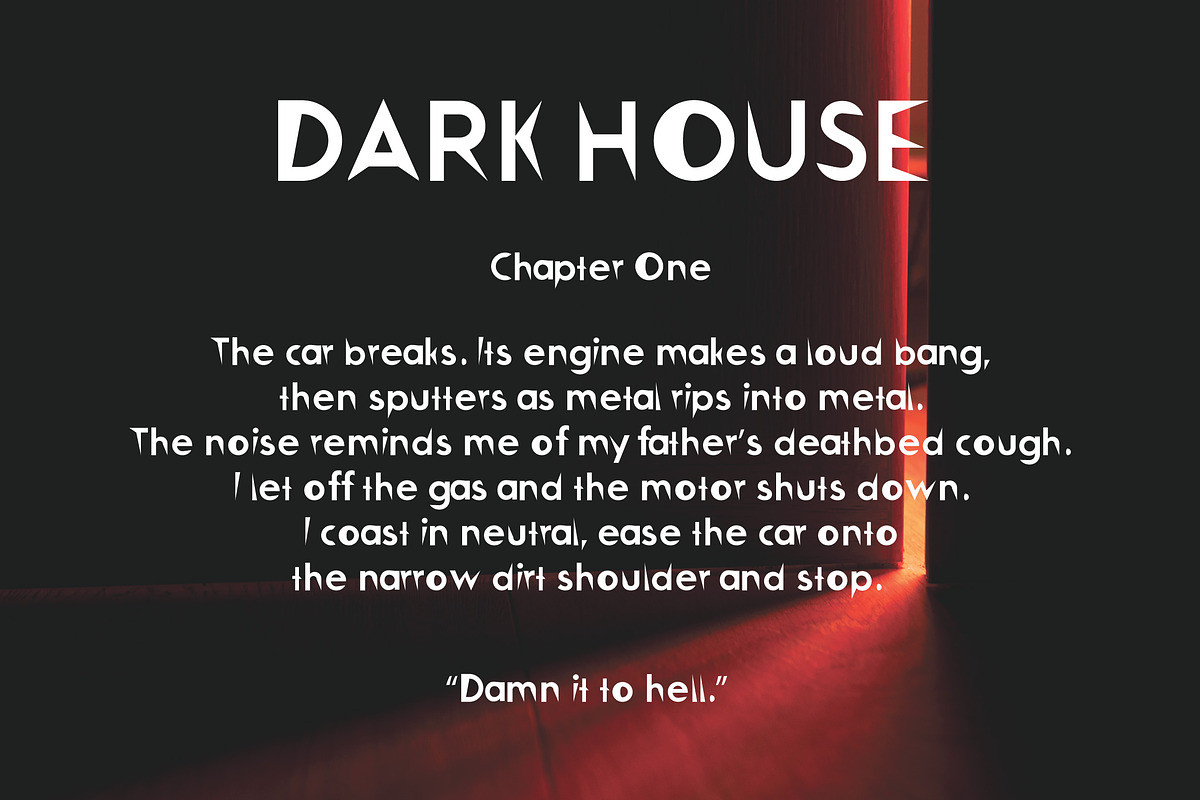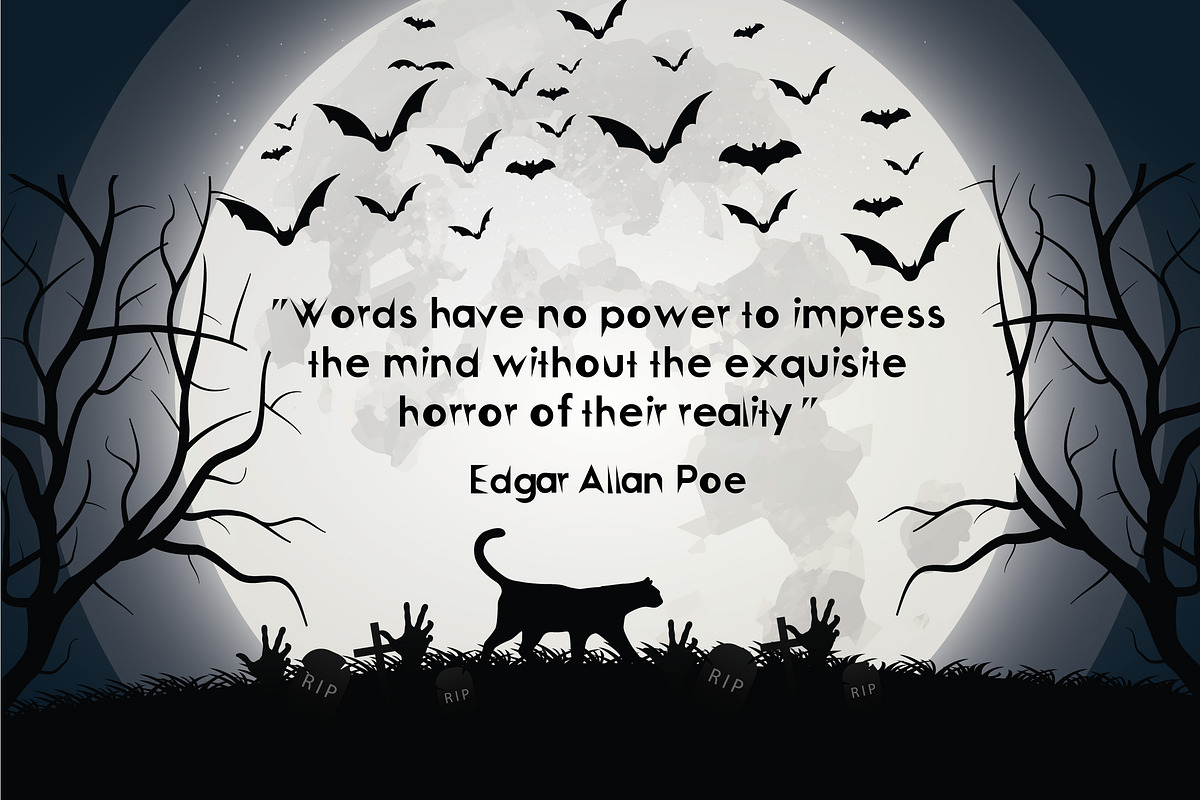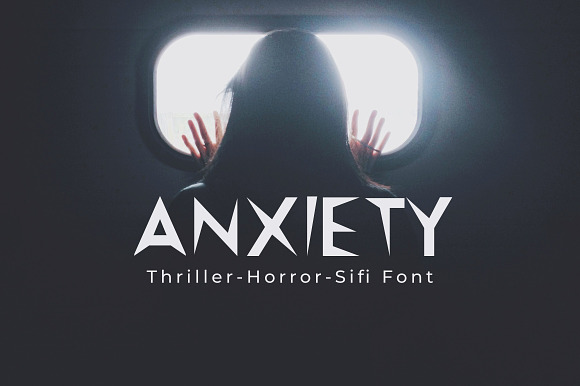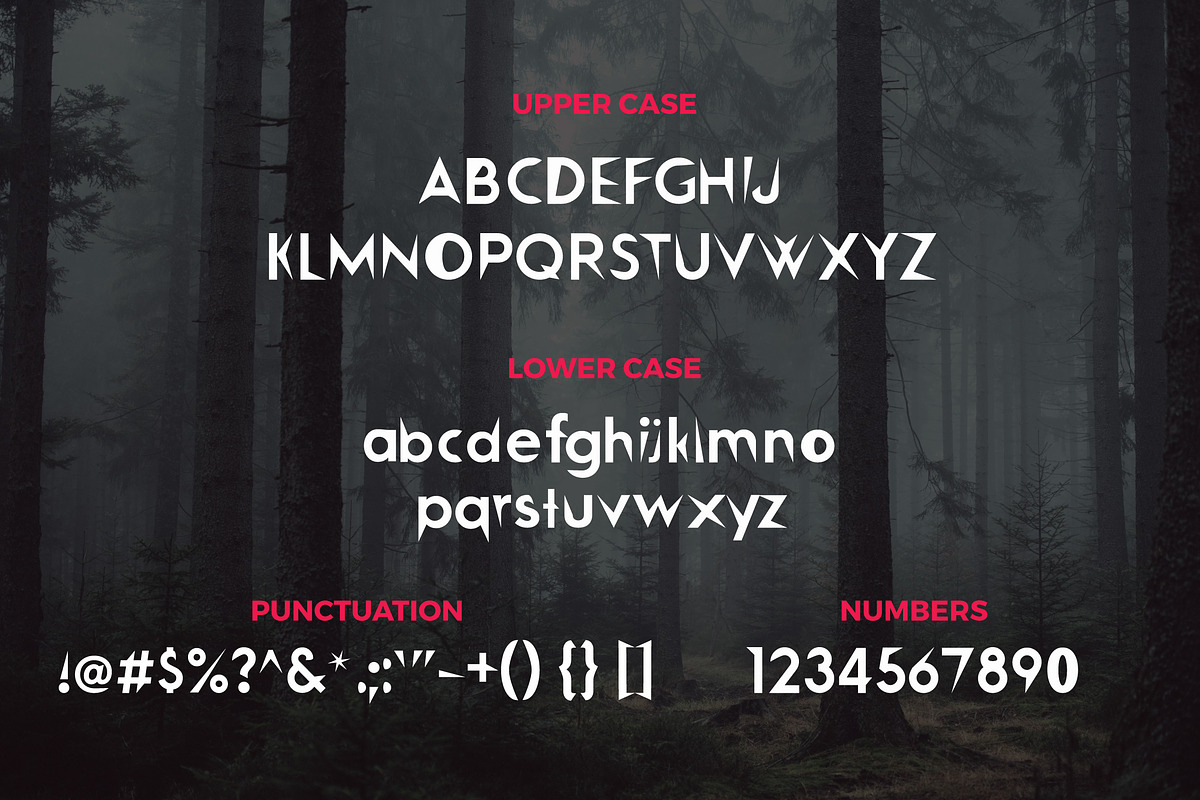
Anxiety Premium Font
Anxiety is a thriller and horror with a mix of Sci Fi style font. I hope you can create your next amazing project with our font. Please give us your feedback. So that we can improve this font. Anxiety Font best uses for headings, Logo type, quotes, apparel design, invitations, flyer, poster, greeting cards, product packaging, book cover, printed quotes, cover album, movie, etc.
Anxiety Premium Font by AN Productions fits naturally into Branding, posters, packaging, typography.